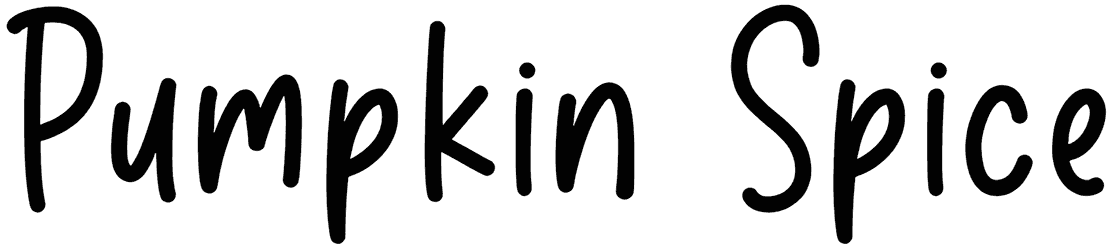
Pumpkin Spice Font
This script font, which has been called “Pumpkin Spice,” looks both polished and smooth. This font is great for comic books, children’s books, and other similar projects because it can be used in many different ways.